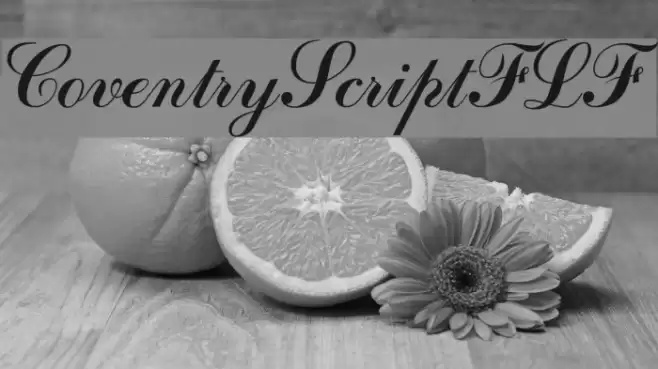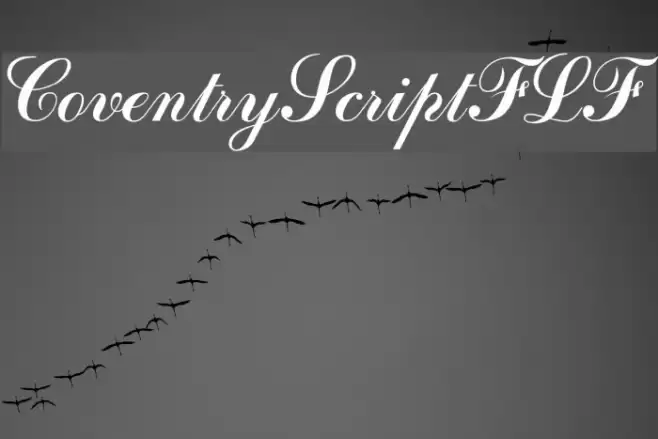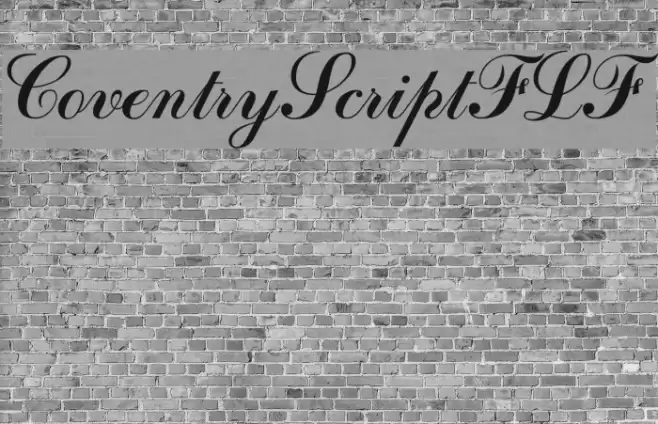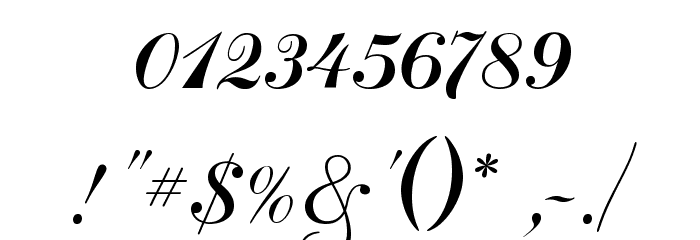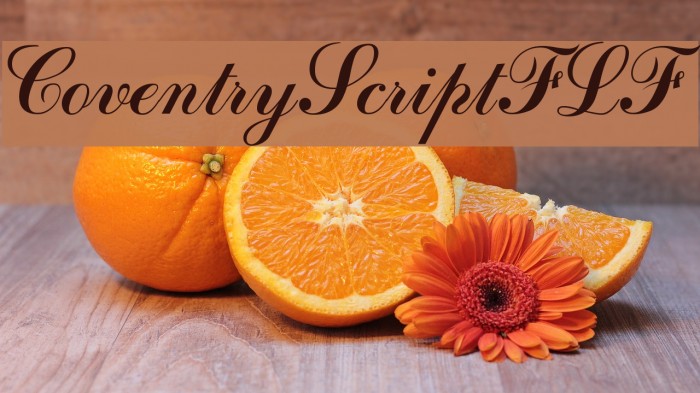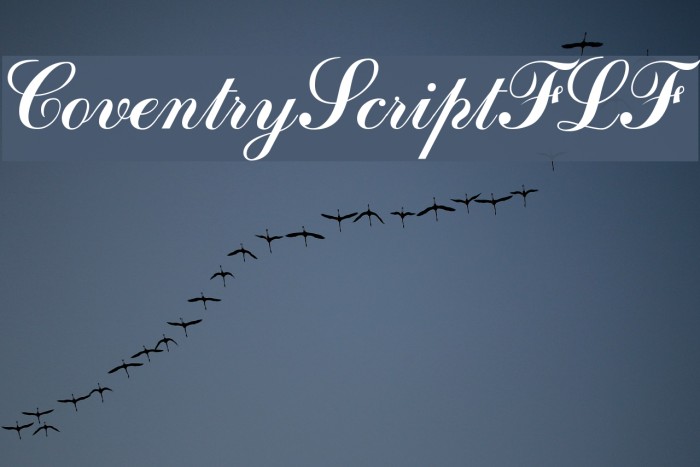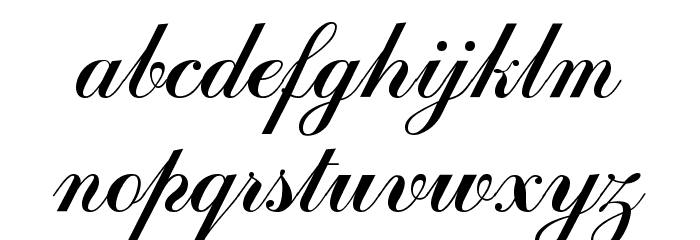
CoventryScriptFLF Font
CoventryScriptFLF Description
This elegant script font features a flowing, cursive style with high contrast between thick and thin strokes. The uppercase letters are ornate, with sweeping curves and flourishes that give a sense of sophistication and grace. The lowercase letters maintain a consistent slant, enhancing the fluidity and connectedness typical of script fonts. Numbers and special characters are designed to match the overall aesthetic, ensuring a cohesive look across all text elements. This font is ideal for creating a luxurious and refined appearance, making it suitable for formal invitations, branding, and decorative purposes.
An elegant script font with high contrast and flowing, cursive style from Handwritten fonts.
- Proposed Projects: Ideal for wedding invitations, luxury branding, decorative signage, and elegant stationery.
- Overall Style: Elegant, Decorative
- Use Case: Headlines, Invitations, Branding